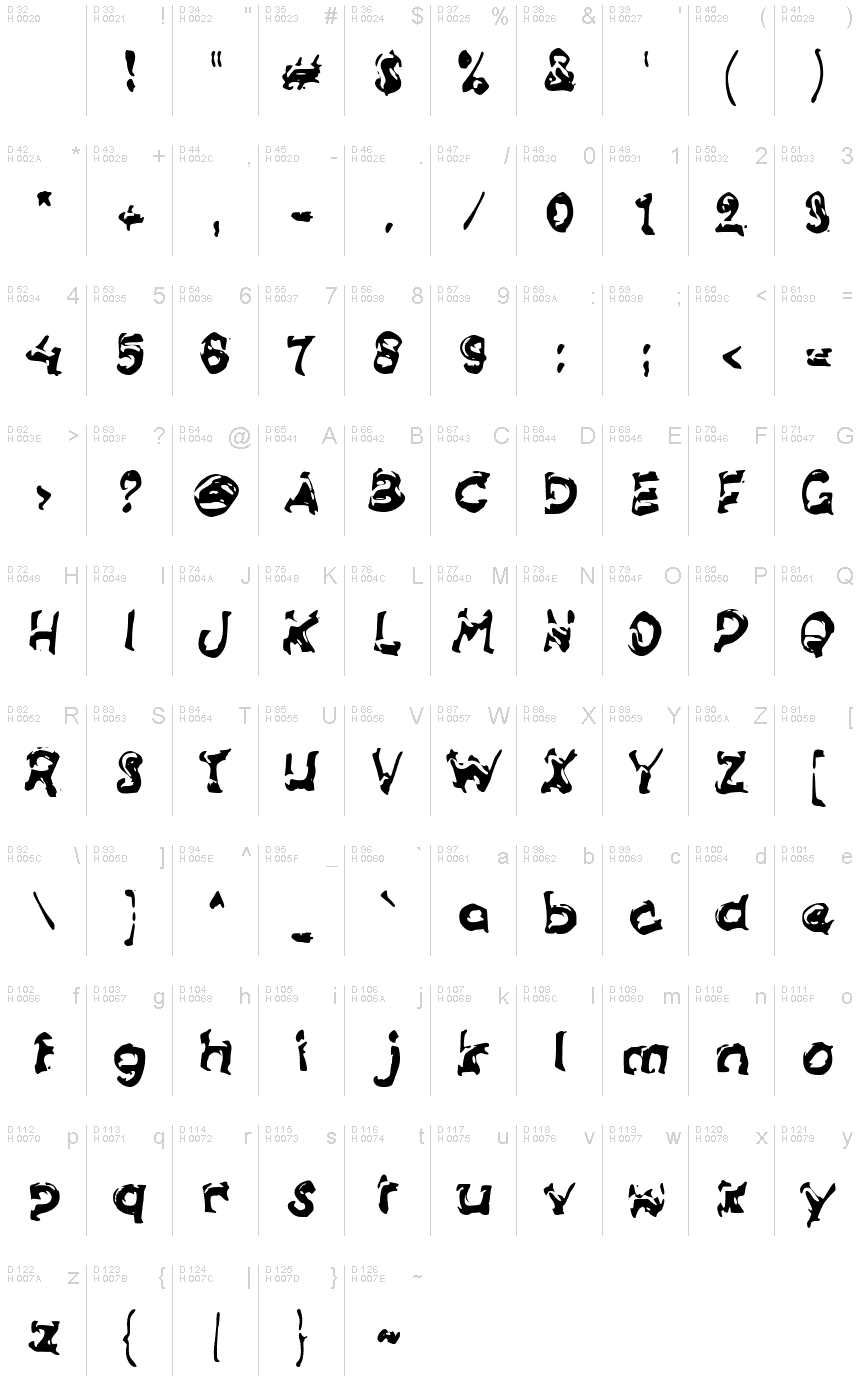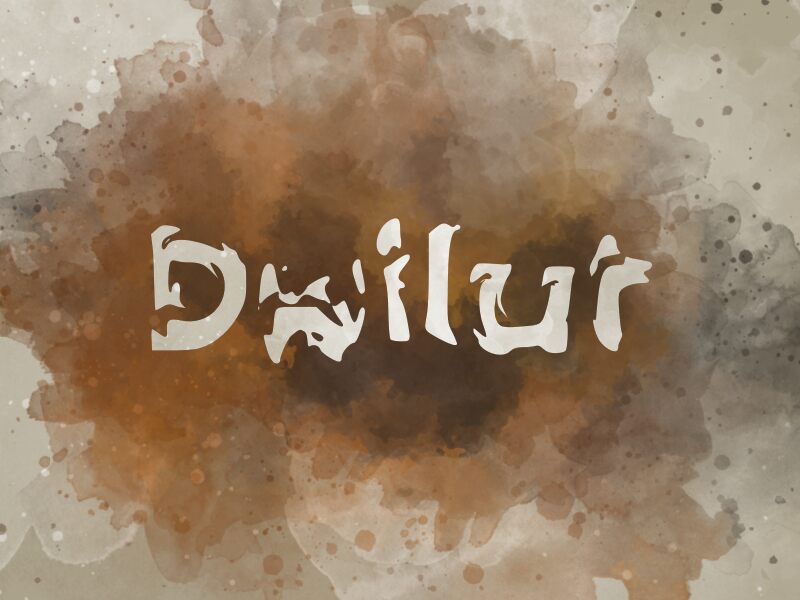
Dwilut
Introducing Dwilut, a bold and distorted display font designed by Wahyu Eka Prasetya. Its exaggerated curves and sharp angles give it a unique aesthetic that makes it perfect for projects requiring an edgy look. Use Dwilut to make eye-catching logos, posters, t-shirts designs and more! It is sure to turn heads and leave a lasting impression.